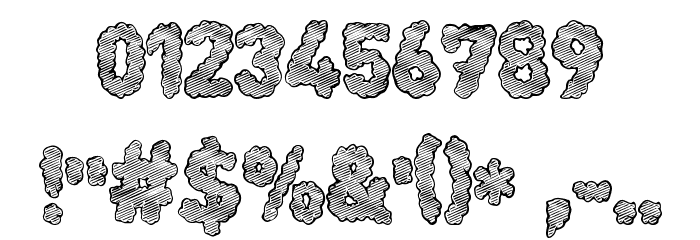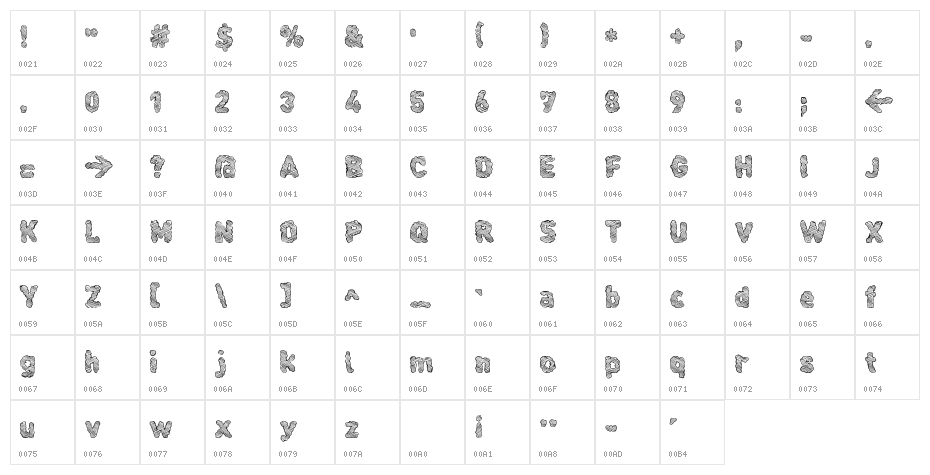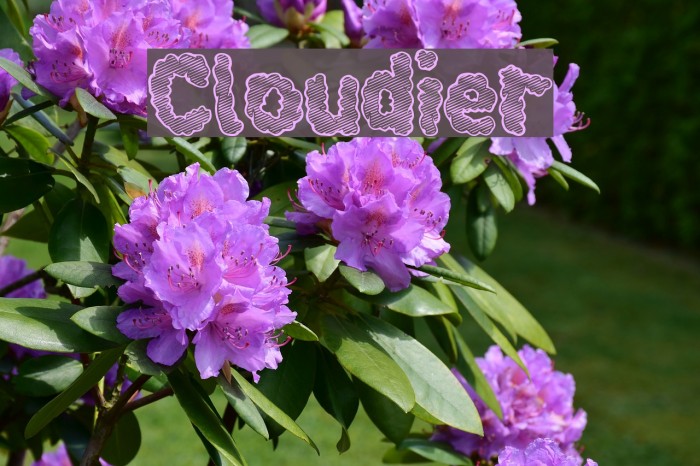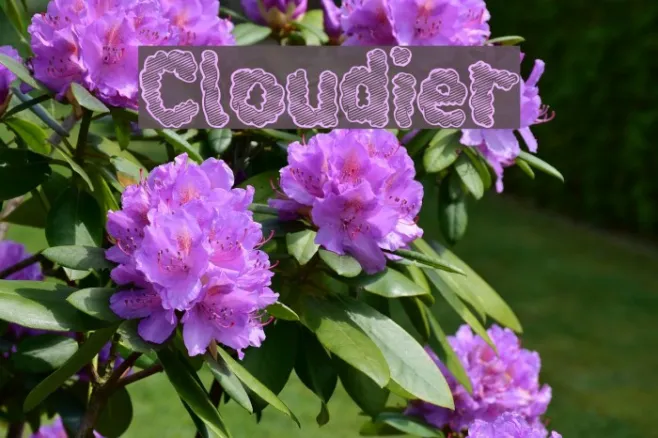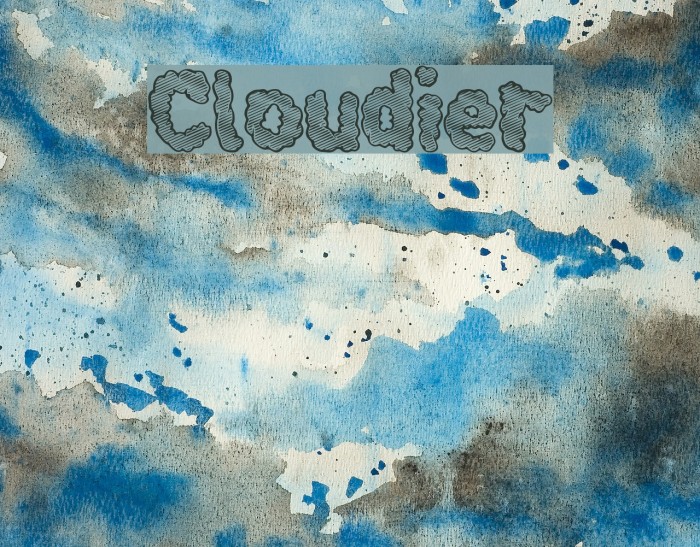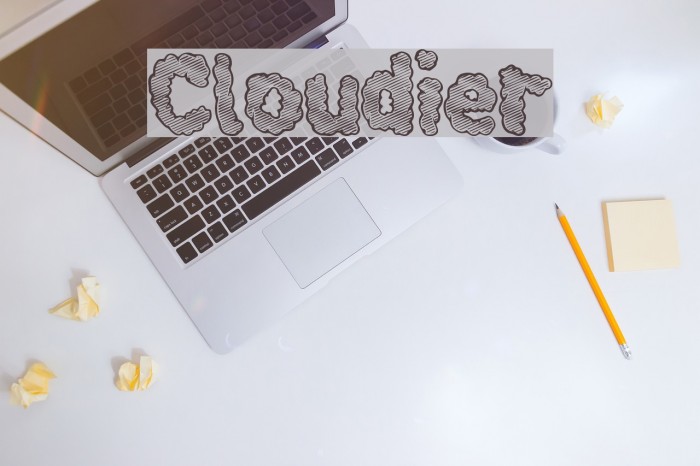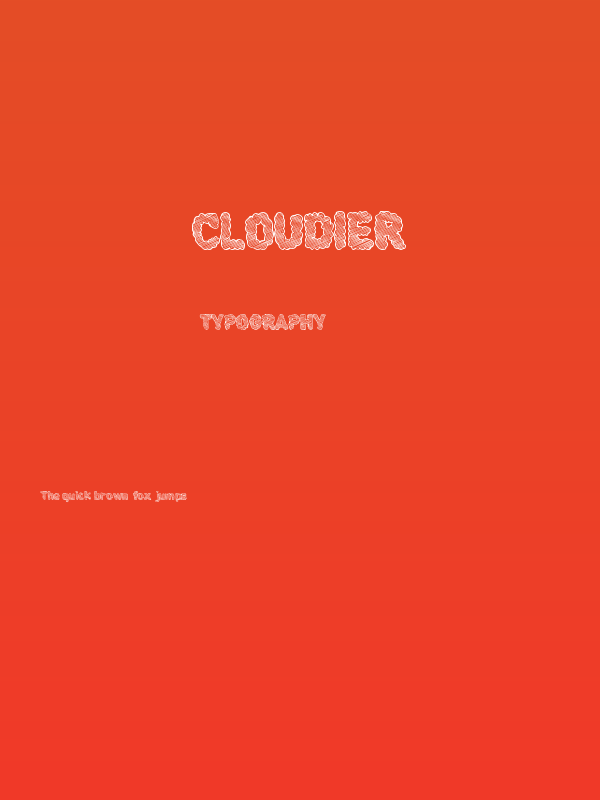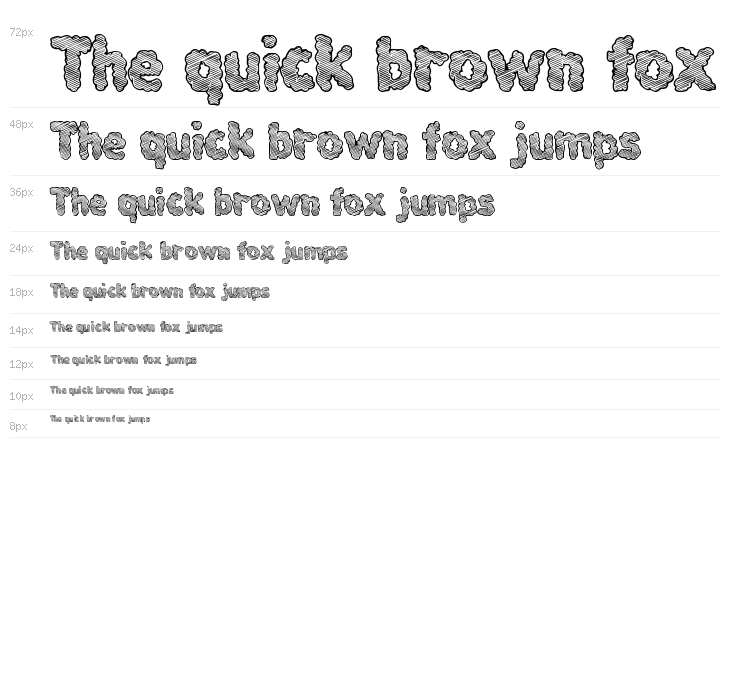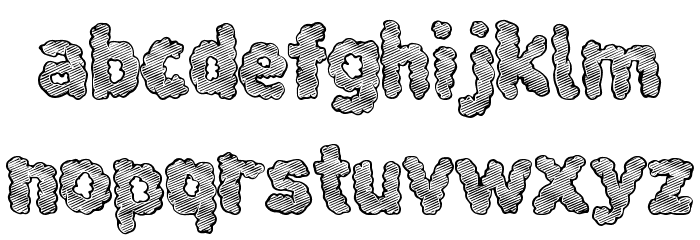
Cloudier Font
Cloudier Description
This playful and whimsical font features a unique cloud-like texture, giving each character a fluffy and airy appearance. The letters are bold and rounded, with a hand-drawn feel that adds a touch of creativity and fun. The intricate line work within each character creates a sense of depth and movement, making it stand out in any design. Its distinct style is perfect for projects that require a lighthearted and imaginative touch. The font includes a full set of uppercase and lowercase letters, numbers, and a variety of special characters, all maintaining the same cloud-inspired design.
| Overall Style | Whimsical, Playful, Creative |
| Proposed Projects | Ideal for children's book covers, playful branding, greeting cards, and creative posters. |